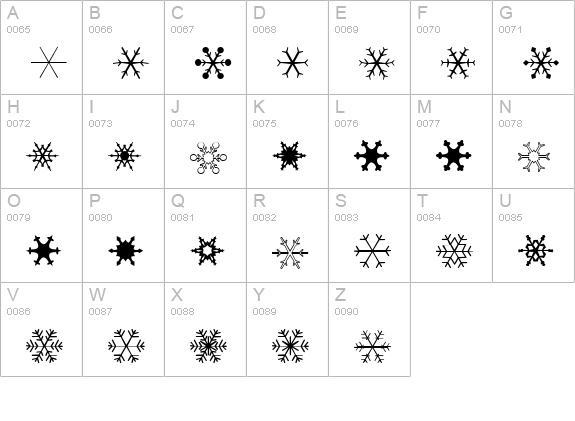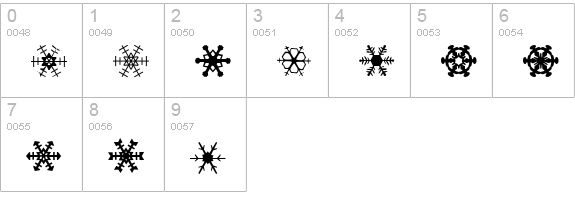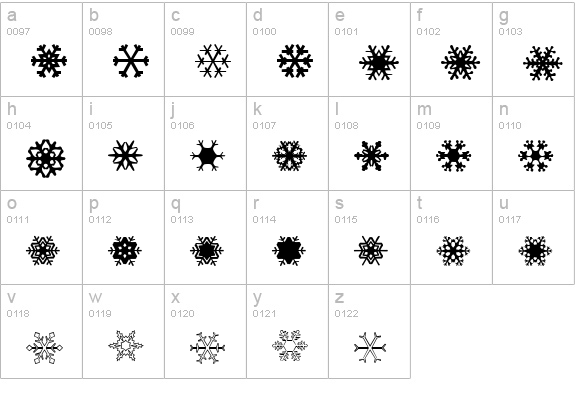
SchneeFlakenTwo Font Details
Introducing SchneeFlakenTwo, a captivating and enchanting font that effortlessly combines elegance with a touch of whimsy. This beautifully crafted typeface is perfect for adding a touch of magic to any project, whether it be a logo, invitation, or headline. SchneeFlakenTwo features intricate and delicate letterforms that resemble delicate snowflakes, forming a unique and mesmerizing design. Every curve and flourish has been expertly crafted to create a sense of grace and sophistication, capturing the essence of a winter wonderland. But what truly sets SchneeFlakenTwo apart is its versatility and accessibility. This font is not only visually stunning, but it is also free to download at FontsMarket.com, making it readily available to anyone seeking to add a touch of elegance to their creative endeavors. Whether you are a professional designer or a passionate hobbyist, SchneeFlakenTwo offers the opportunity to bring your visions to life without any financial constraints. With its wide range of characters and ligatures, SchneeFlakenTwo allows you to experiment and play with various design possibilities. Whether you are aiming for a classic and timeless look or a modern and edgy feel, this font effortlessly adapts to your creative vision, ensuring that your projects stand out and captivate your audience. SchneeFlakenTwo is not just a font; it is an invitation to explore the limitless possibilities of design. With its free availability and exquisite design, there is no reason not to embark on a creative journey with SchneeFlakenTwo as your trusty companion. So, go ahead and download this enchanting font today from FontsMarket.com, and let your imagination soar to new heights.